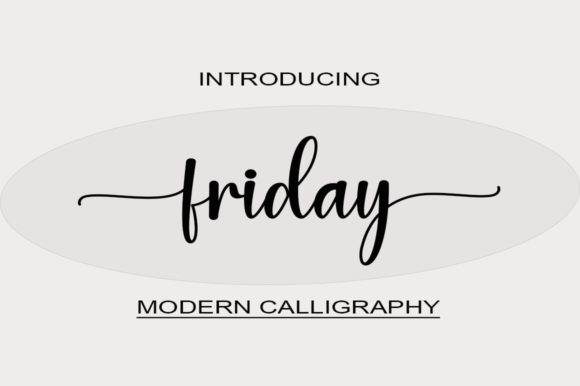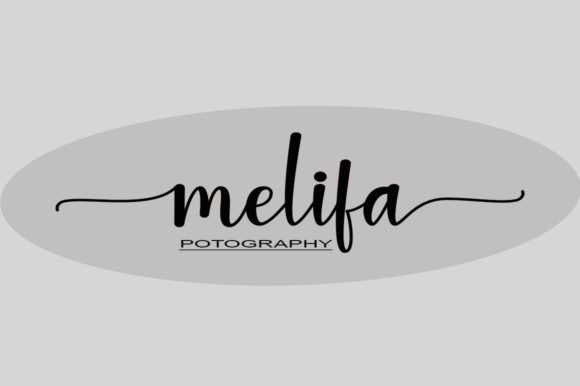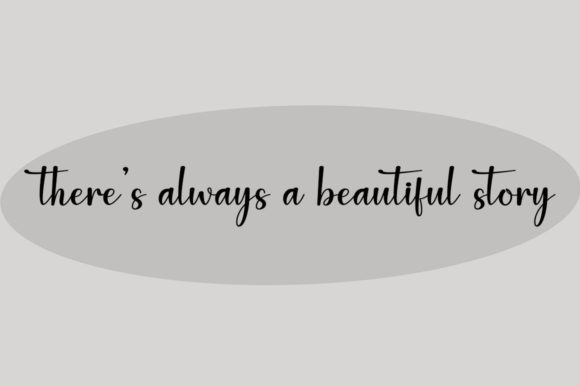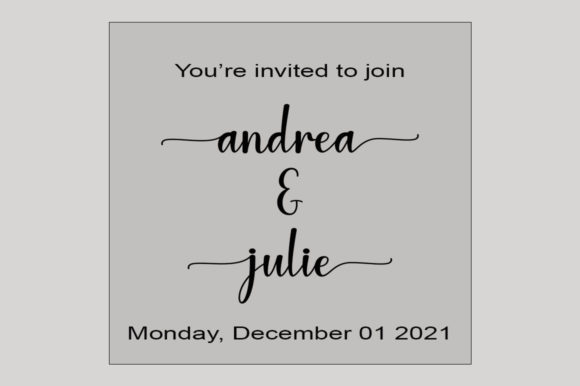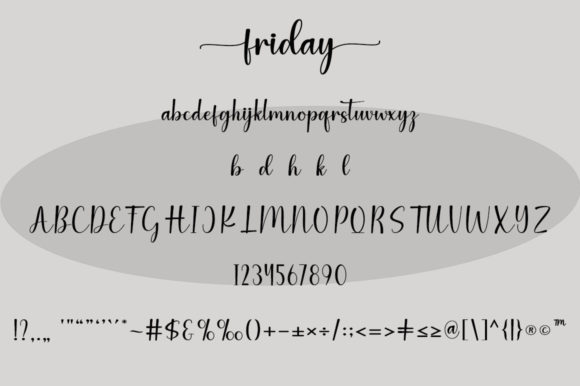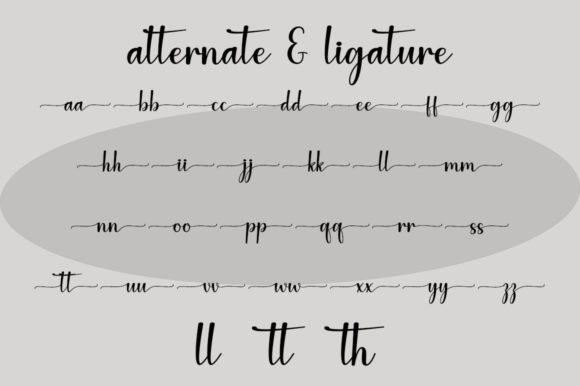
About Friday Font
Friday is a lovely and delicate script font that exudes elegance and class. This font was particularly crafted for those who need a beautiful and refreshing look to their designs. Friday is PUA encoded which means you can access all glyphs and swashes with ease!